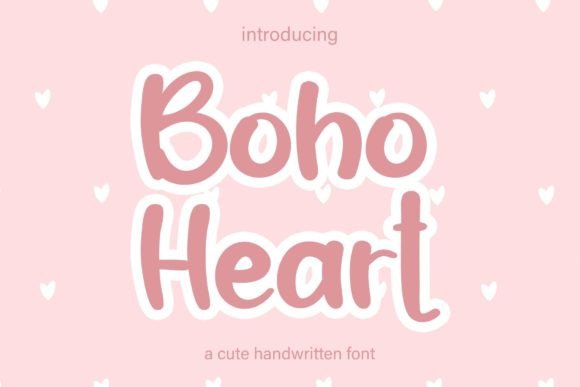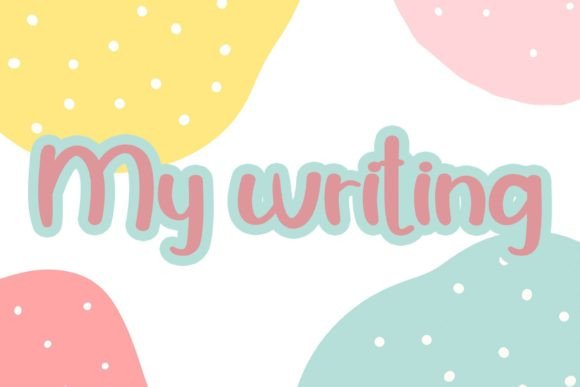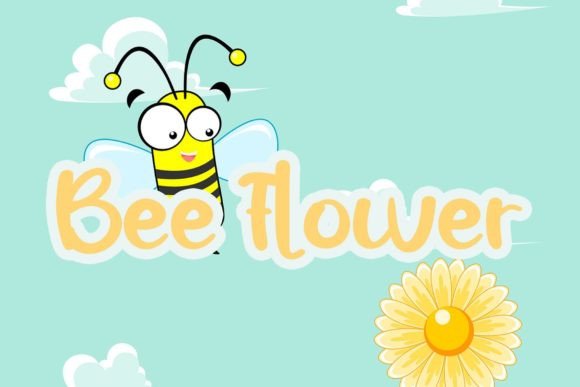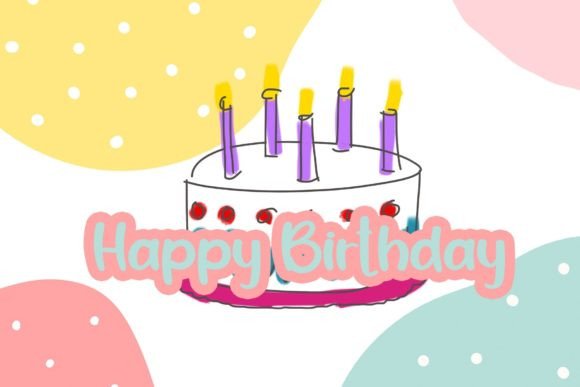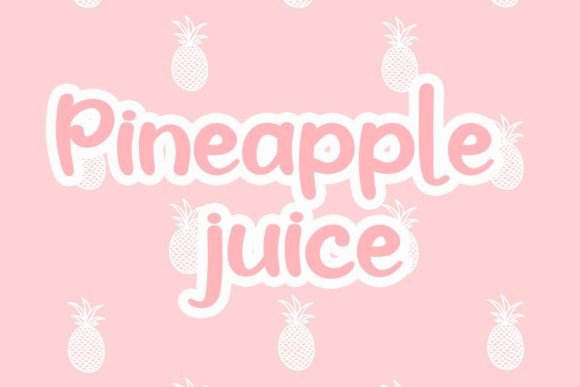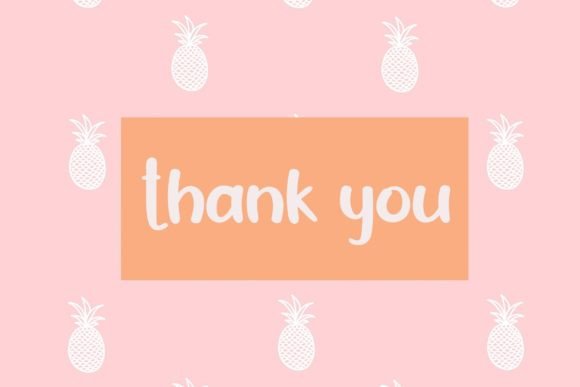
Boho Heart Font
About Boho Heart Font
Boho Heart emerges as a beautiful and refined script font, embodying class, elegance, and a modern aesthetic. With its sophisticated charm, this font becomes a versatile and attractive choice for a diverse array of applications, including logos, branding, invitations, stationery, wedding designs, social media posts, and beyond.
The classiness of Boho Heart is evident in its meticulously crafted script, where each letter is a testament to timeless beauty. The font’s elegance adds a touch of sophistication to designs, making it well-suited for branding and logos that aspire to convey a sense of luxury and refinement.
For invitations and wedding designs, Boho Heart offers a romantic and stylish appeal. Its graceful script can transform these materials into visual masterpieces, setting the tone for special occasions. The font’s versatility extends to stationery, enhancing the overall aesthetic of letters and notes with a touch of modern elegance.
In the realm of digital communication, Boho Heart adds a layer of sophistication to social media posts. Whether used for personal or business accounts, the font ensures that messages are conveyed with style and class, making a lasting impression on the audience.
The adaptability of Boho Heart is evident in its capability to enhance a variety of creative projects. From printed materials to online platforms, this font becomes a valuable tool for designers seeking to elevate their work with a touch of refined charm.
In summary, Boho Heart is not merely a font but a visual asset that brings class, elegance, and a modern aesthetic to the forefront. Whether applied to logos, wedding designs, or social media posts, Boho Heart stands out as a choice that transforms ordinary designs into extraordinary expressions of sophistication. Embrace the timeless beauty of Boho Heart to infuse your projects with a touch of class and elegance.